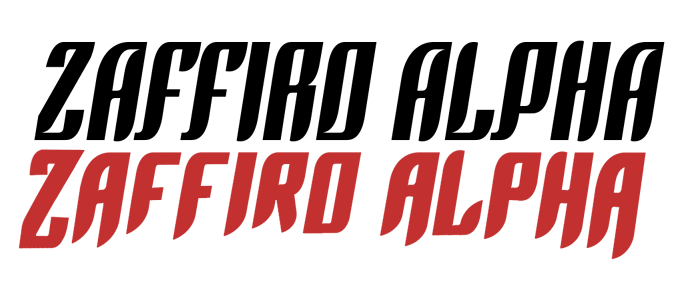
Need help looking for Alpha Sapphire logo font
Hey I’m looking for the font that used in the logo for Alpha Sapphire and I need your help
So far I haven’t found the exact font but the closes fonts I’ve found so far are
• Dagger by Alexander Tarbeev
• Fury Bold by Patrick Griffin
• Linotype Rezident Com Four by Paul van der Laan
Can you assist me in finding the exact front used in the Alpha Sapphire. Or at least a font very similar to it thanks
There might have been an original font it was based upon. However, all the letters are of different heights from the others, so I’m reasonably sure someone drew it that way.
Looks like they used the “arc” option to achieve the way it looks
For Omega Ruby its companion game it used used a modified version of Graveblade by Ray Larabie for its logo. I’m wondering what font was modified and used to create the Alpha Sapphire logo
The font is called Alpha Sapphire. The different heights of the letters indicates upper/lower case. It’s a free font but this site gives you the opportunity to make a donation to the creator.
That’s a fan made font. Not the font that nintendo used for basis of the Alpha Sapphire logo